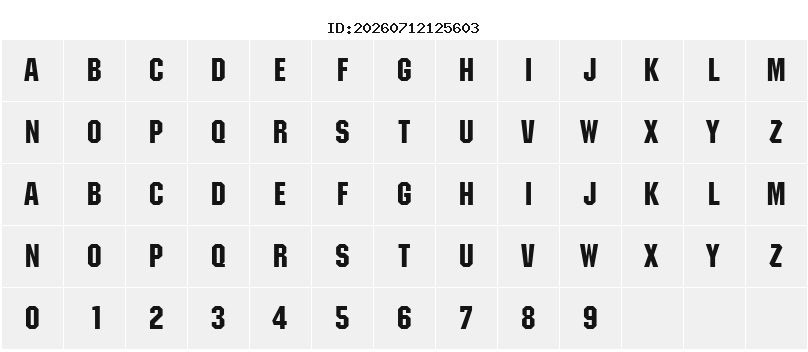
Machine BT Preview
• Font Name: Machine BT
• Font ID: ITC Machine, Square 880
• Full Font Name: Machine BT
• Version: mfgpctt-v1.58 Thursday, March 4, 1993 1:10:15 pm (EST)
• PostScript Name: MachineITCbyBT-Regular
• Character Count: 283
About Machine BT.ttf
Machine BT.ttf is a modern, elegant sans-serif font designed for ultimate readability and visual harmony. Perfect for branding, headlines, web design, and print materials.